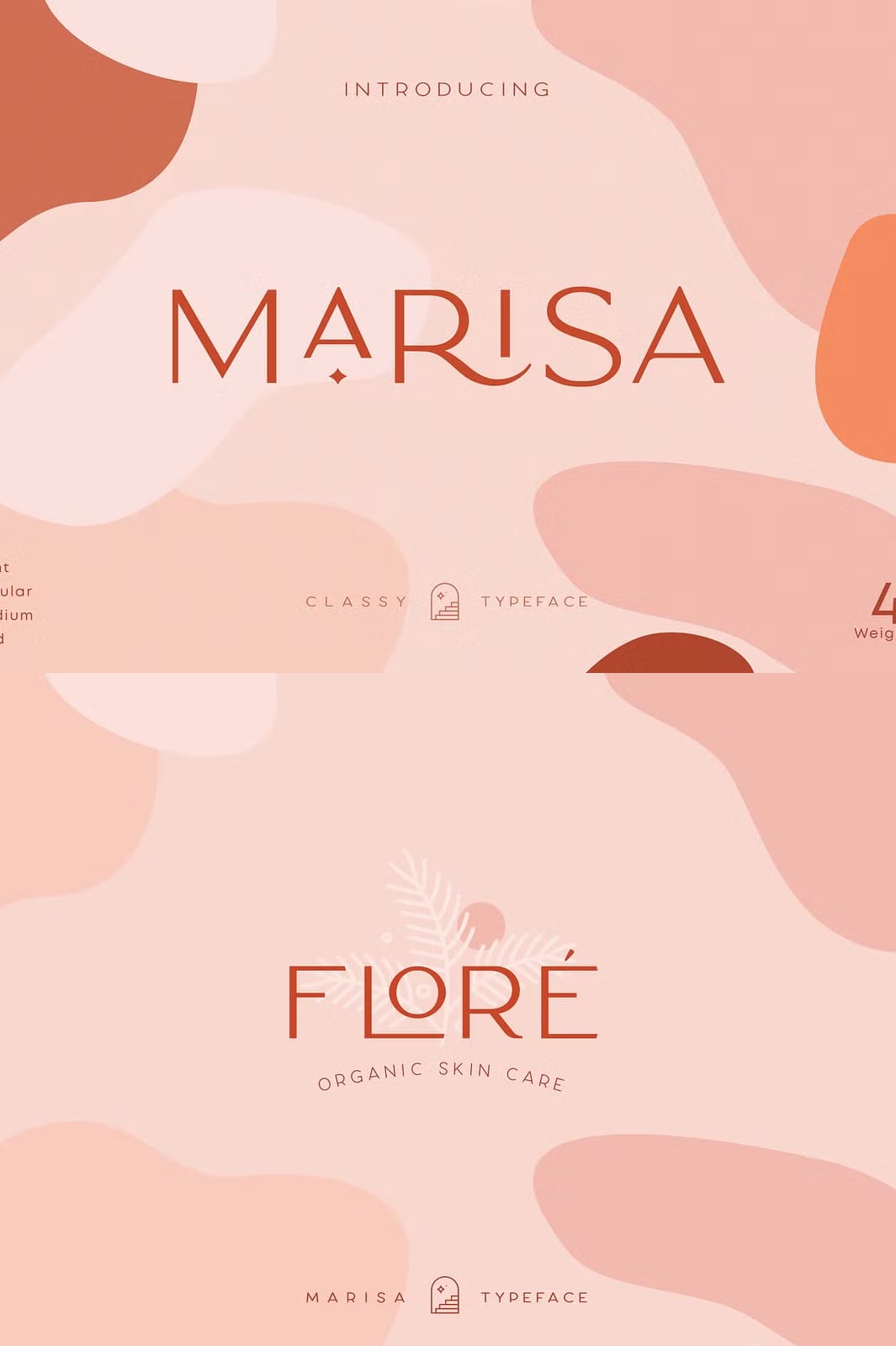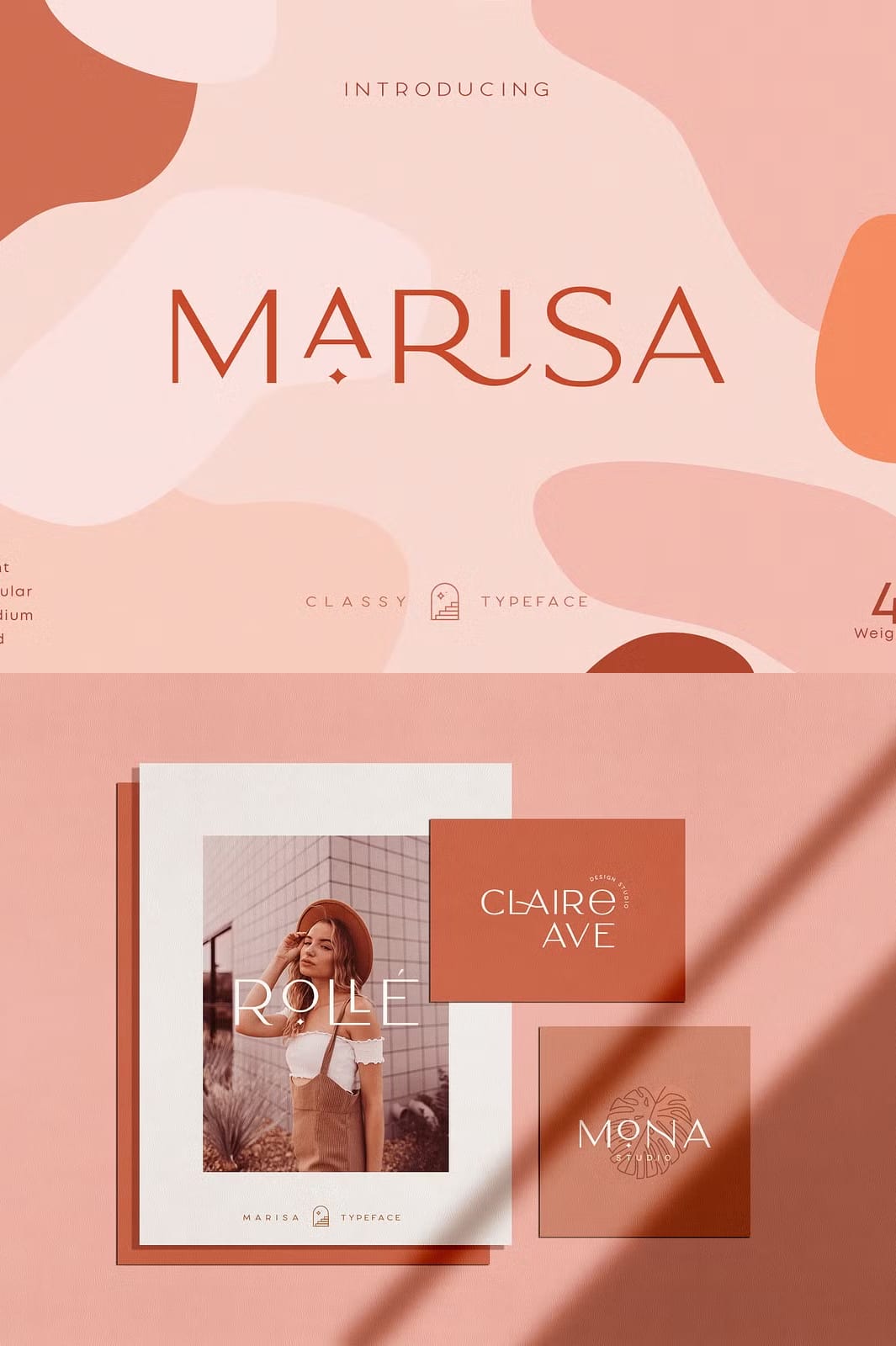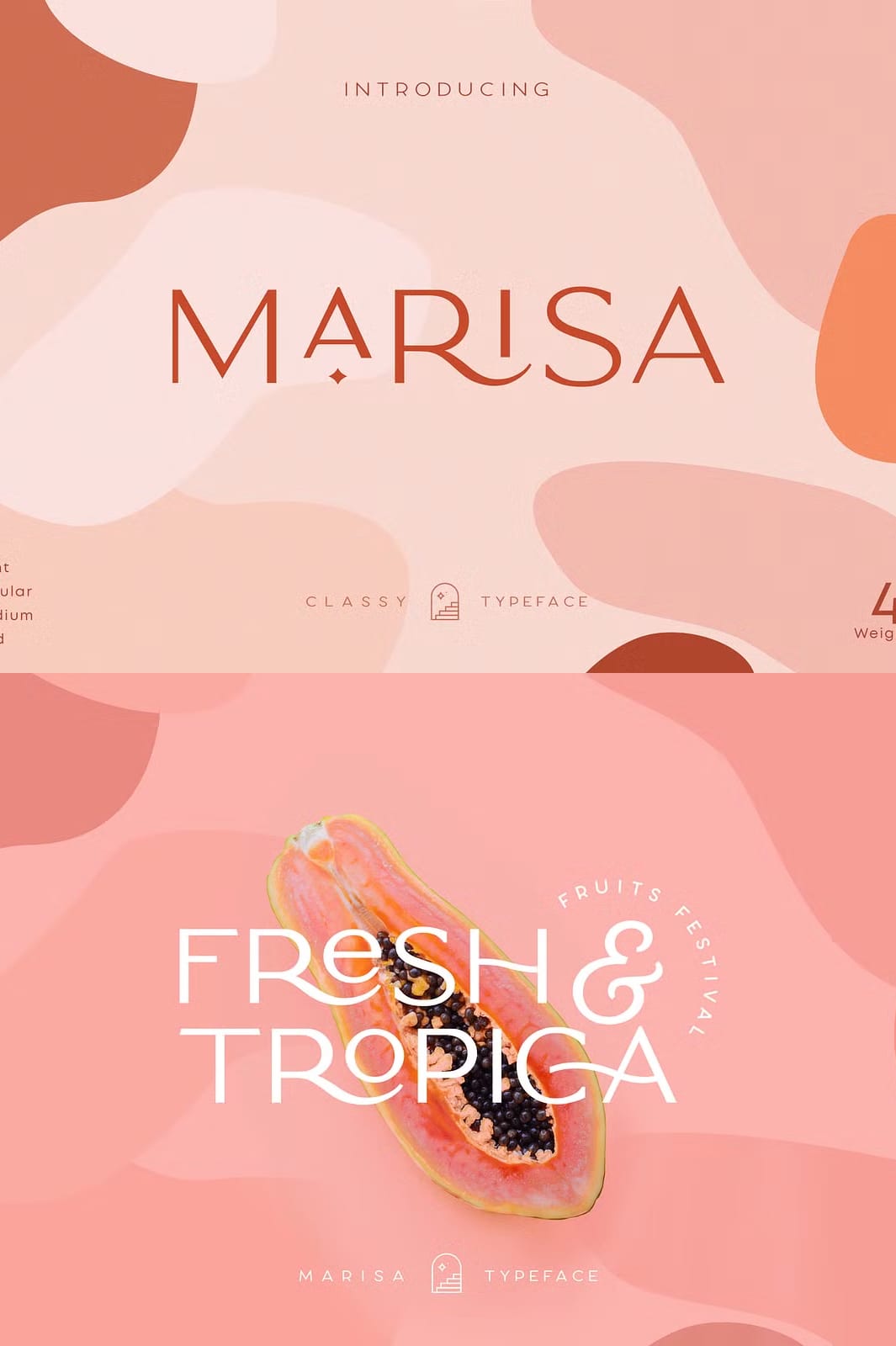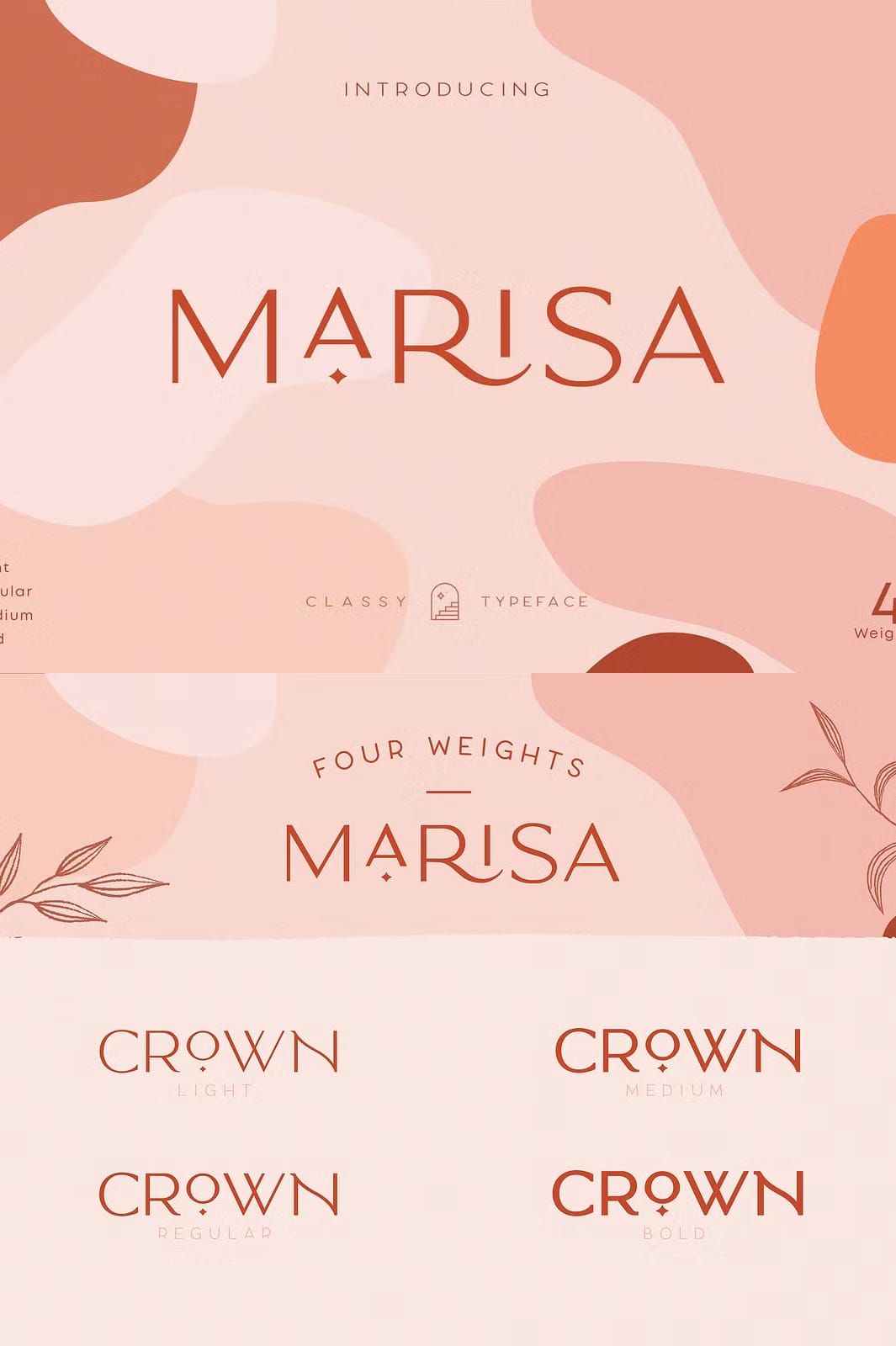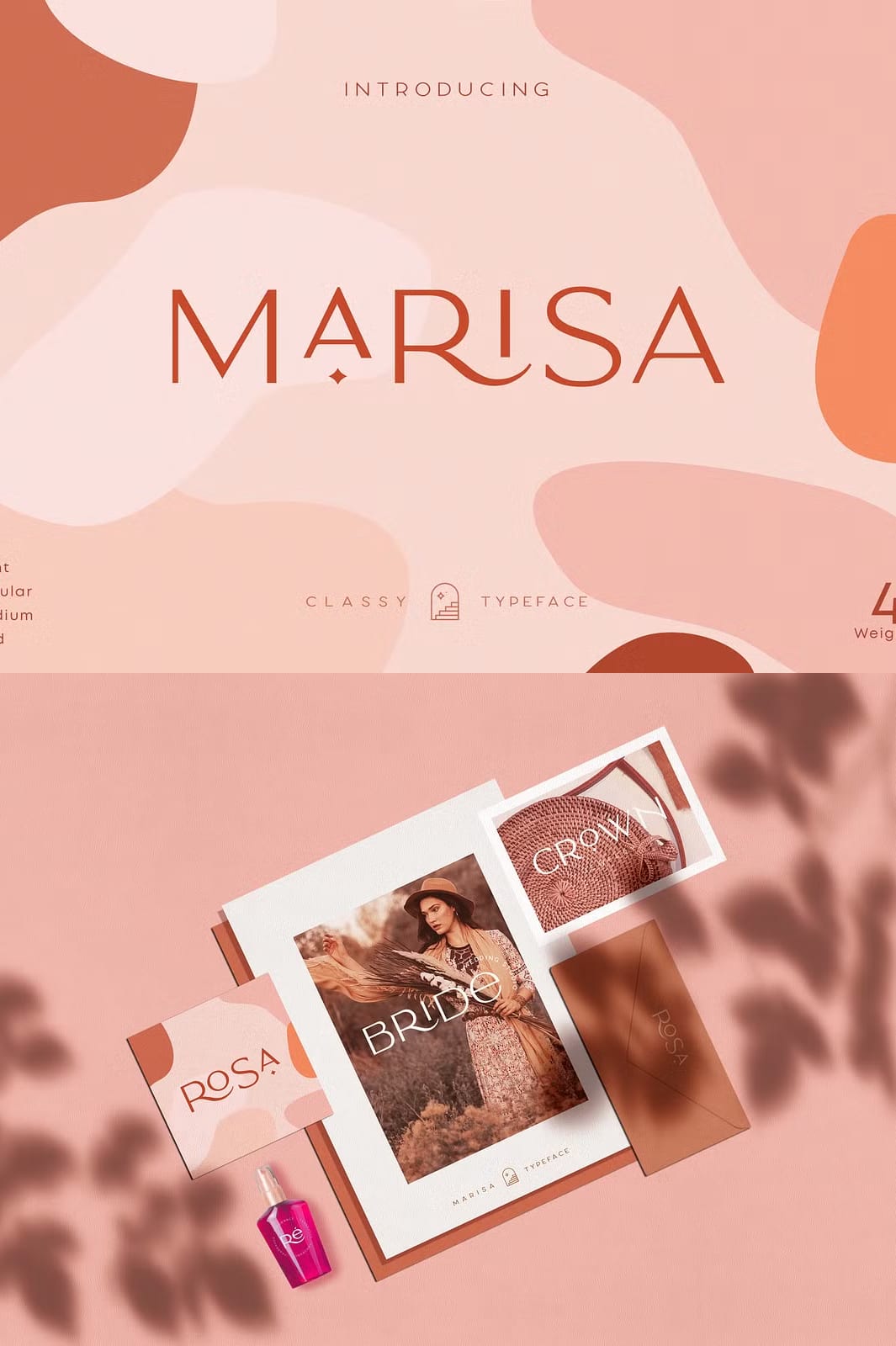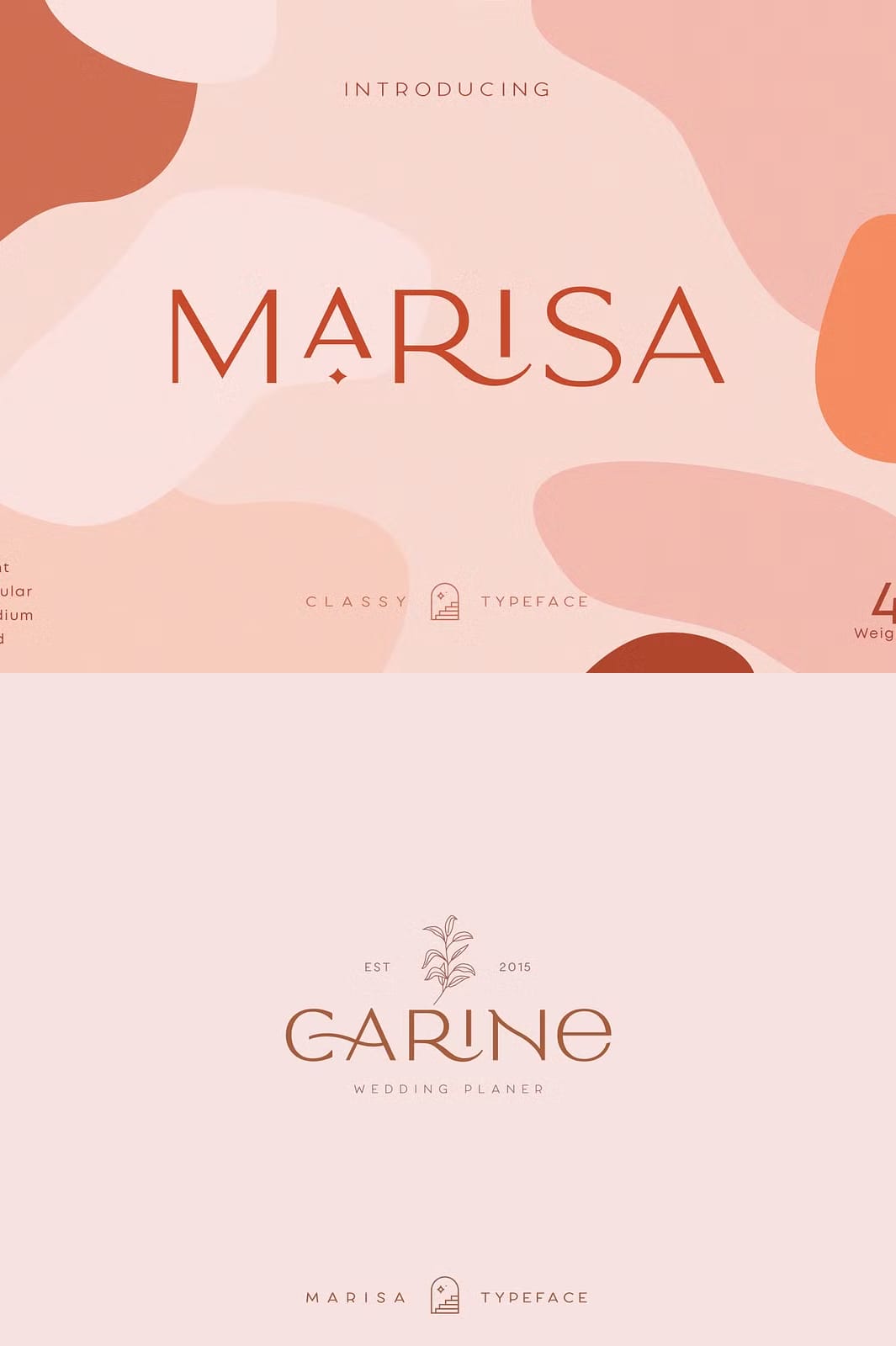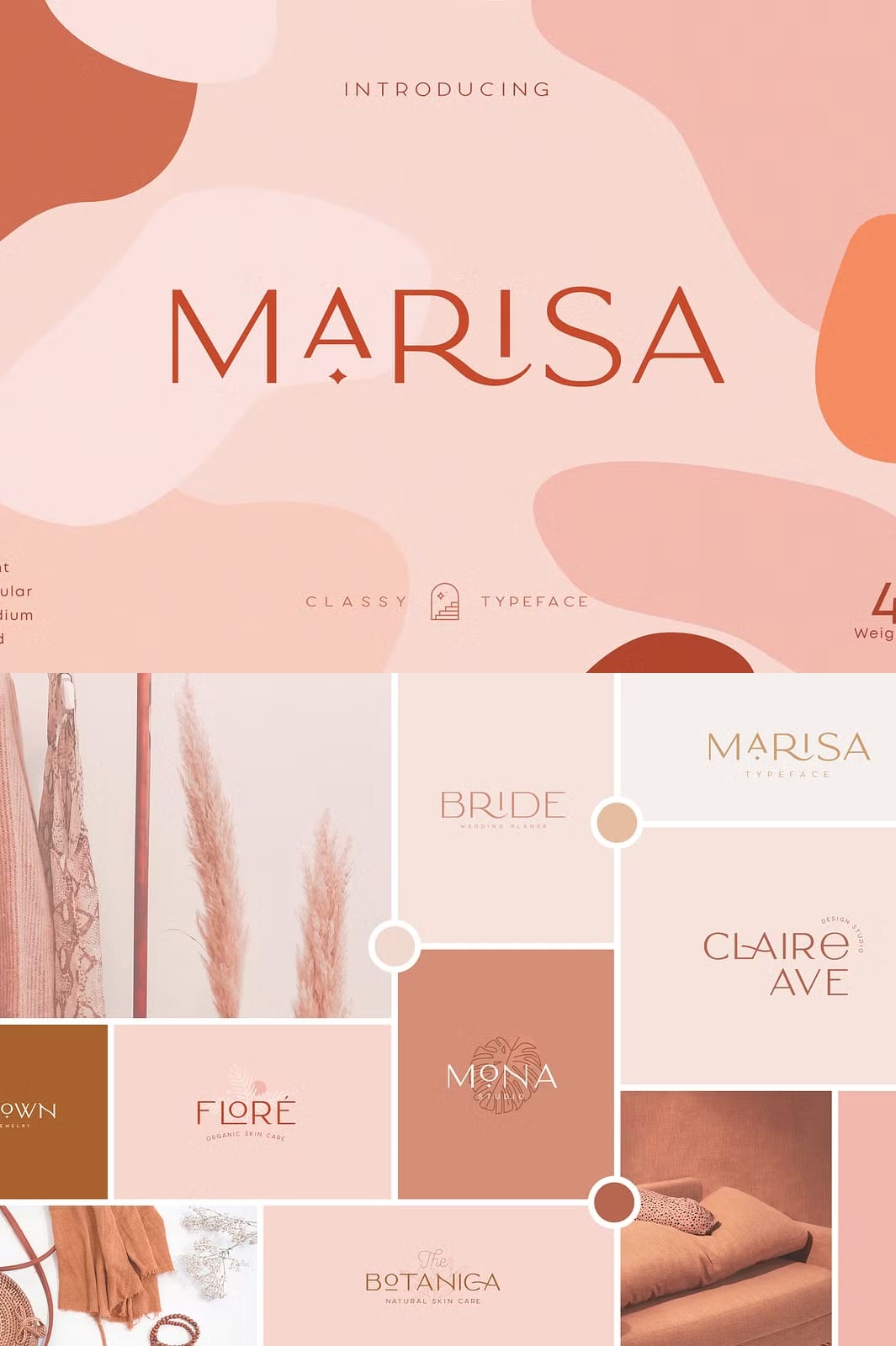
Classy Marisa delivers a minimalist modern elegant aesthetic that elevates any design project with its refined vintage charm. This beautifully crafted font boasts an extensive set of typographic features, including delicate ligatures, numerous special alternative glyphs, and comprehensive multilingual support. Whether used in large headline formats or smaller text overlays, Classy Marisa maintains exceptional clarity and style, making it an outstanding choice for designers who want to impress with simplicity and grace.
Versatile Weight Options Expand Design Possibilities
This font family includes four distinct weights that enable designers to create dynamic typographic hierarchies while maintaining cohesion. Its all-caps style paired with smooth stylistic alternates and ligatures offers unparalleled flexibility, allowing for sophisticated customization that fits diverse branding and creative needs. From bold logos and apparel branding to elegant product packaging and stylish magazine headers, Classy Marisa adapts seamlessly to a wide range of design scenarios.
Advanced Features and Multilingual Support
Designed for usability and beauty, Classy Marisa supports numerous accented characters to cover multiple languages, ensuring your global projects are consistently stylish and professional. The font includes carefully designed numerals and punctuation marks to complement the letterforms and create balanced, readable compositions. Whether you work in graphic design, advertising, or editorial layouts, this font’s full OpenType features heighten your project’s visual impact.
Perfect Font for Branding and Stylish Visuals
Classy Marisa is the ideal font to lend sophistication and elegance to brands that desire a timeless yet contemporary look. Its minimalist vintage style enhances product packaging, clothing brand identities, logos, and editorial headlines with a touch of understated luxury. Whether you’re crafting a logo that demands attention or enhancing visual storytelling with attractive text overlays, this font delivers impactful results every time.